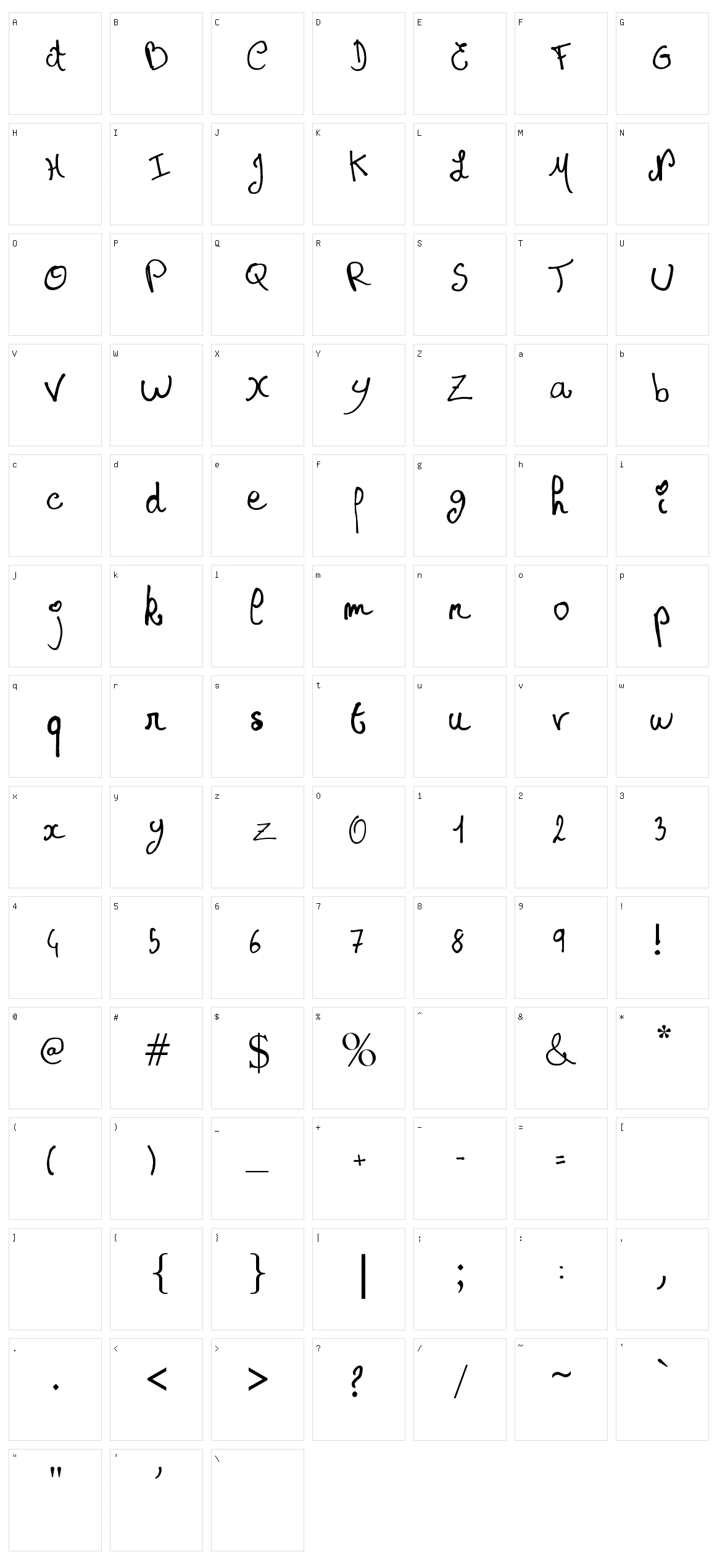
The free font Princesse Muffin is carefully designed by claire, showcasing a thoughtful balance of creativity and usability and falls under the Script font style. When you download the ZIP file, it contains only 22.87 KB of font files, making it lightweight and quick to download. Please review the license details below to understand permitted usage and distribution rights. If license information is not available, we recommend using this font for personal projects only or contacting the author directly for commercial usage permissions.